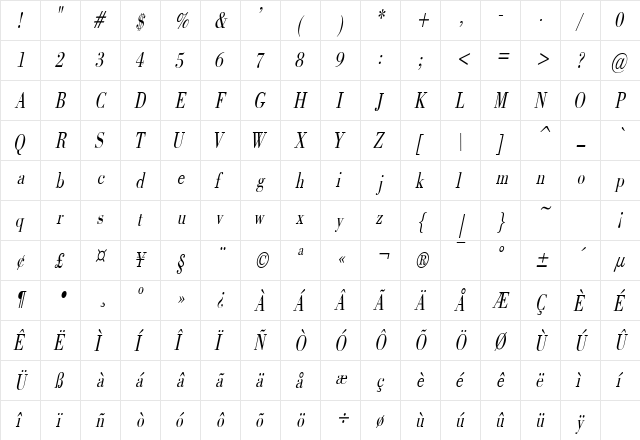
CapelliCondensed Italic Font Preview
Design Context for CapelliCondensed Typeface
CapelliCondensed takes a measured approach to typography — its balanced proportions and neutral character make it a reliable workhorse for both digital and print work. The slanted form adds forward momentum and visual energy. The condensed width makes it efficient for tight spaces without sacrificing legibility.